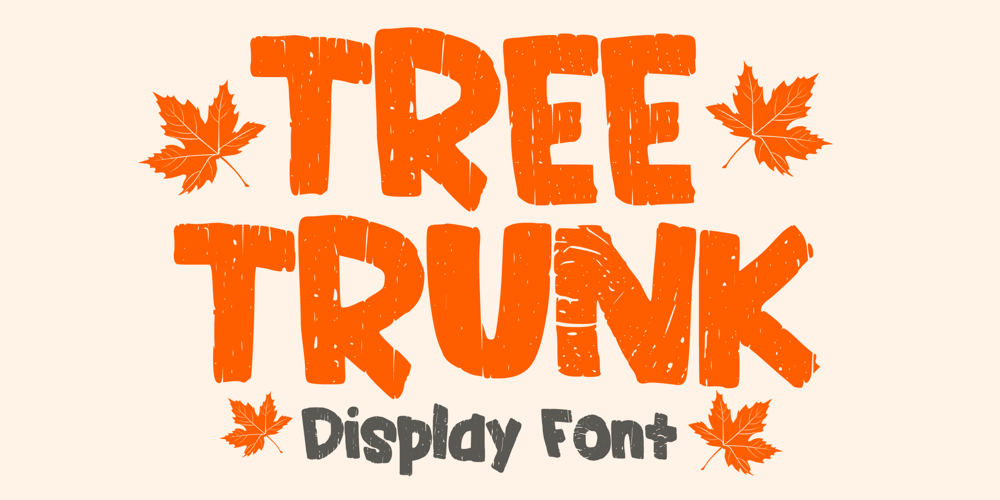
Tree Trunk
Tree Trunk Font Family was designed by Gabriel Valentinus and published by Mvmet. Tree Trunk contains 1 styles and family package options. Tree Trunk is a bold display font with wood texture on it. You can use it for anything ranging from t-shirts and clothing, for your kids book designs, kids party needs, greeting cards, stickers, posters, banners, or anything that needs a bold and fun touch. Try it to create fabulous designs and feel the fun and cheering vibes with it!